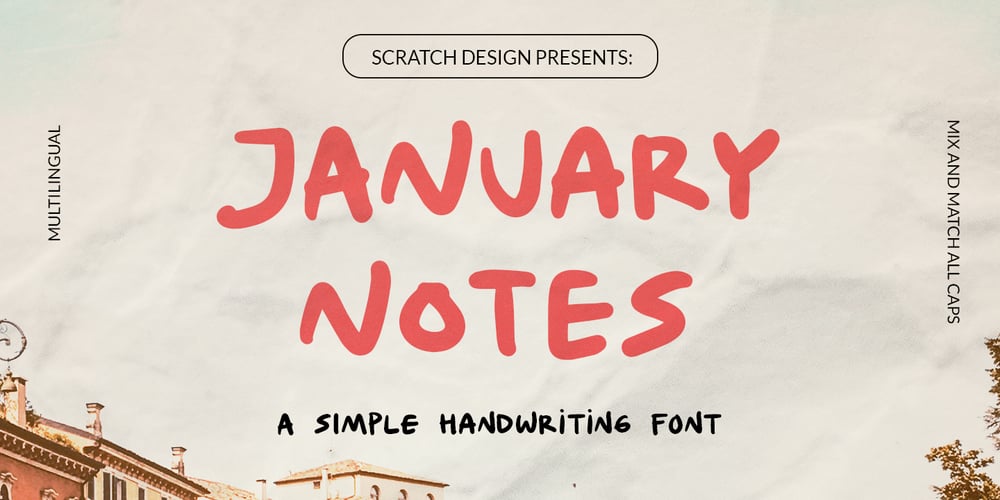
January Notes Font Family was designed by Gitayogi Irhandi and published by Scratch Design. January Notes contains 1 styles and family package options. Introducing January Notes, your go-to font for simple yet stylish handwriting. Resembling a marker brush or bold ballpoint, it’s perfect for writing, notes and journaling. This font will be perfect for posters, branding, logos, quotes, and other designs that need doodle handwriting.Include: Two types of uppercase multilingual numbers and punctuation Add flair to your writing with January Notes!